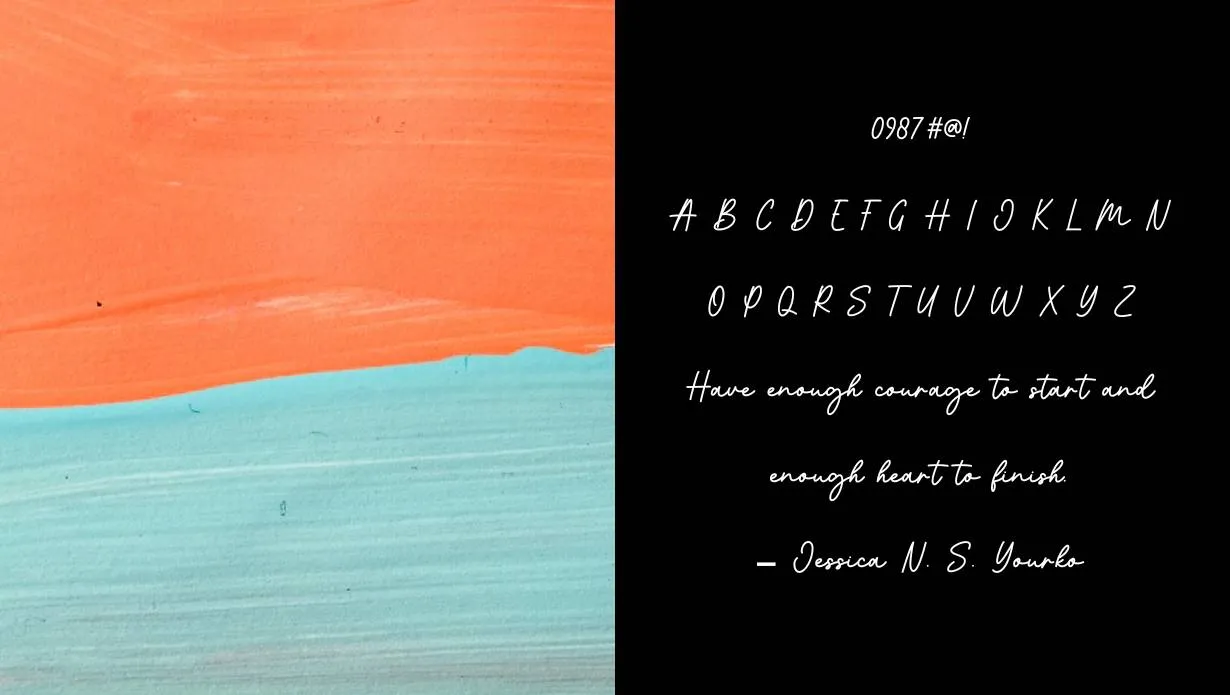
Today we share with you a Magical Font that was created by Graphix Line Studio and it falls into the category of handwritten family. The font was originally designed for use in the body text and in small sizes. The Font file format is TTF which is a TrueType format that can be used on both Windows and Mac operating systems.
| Name | Magical Font |
| Designer | Graphix Line Studio |